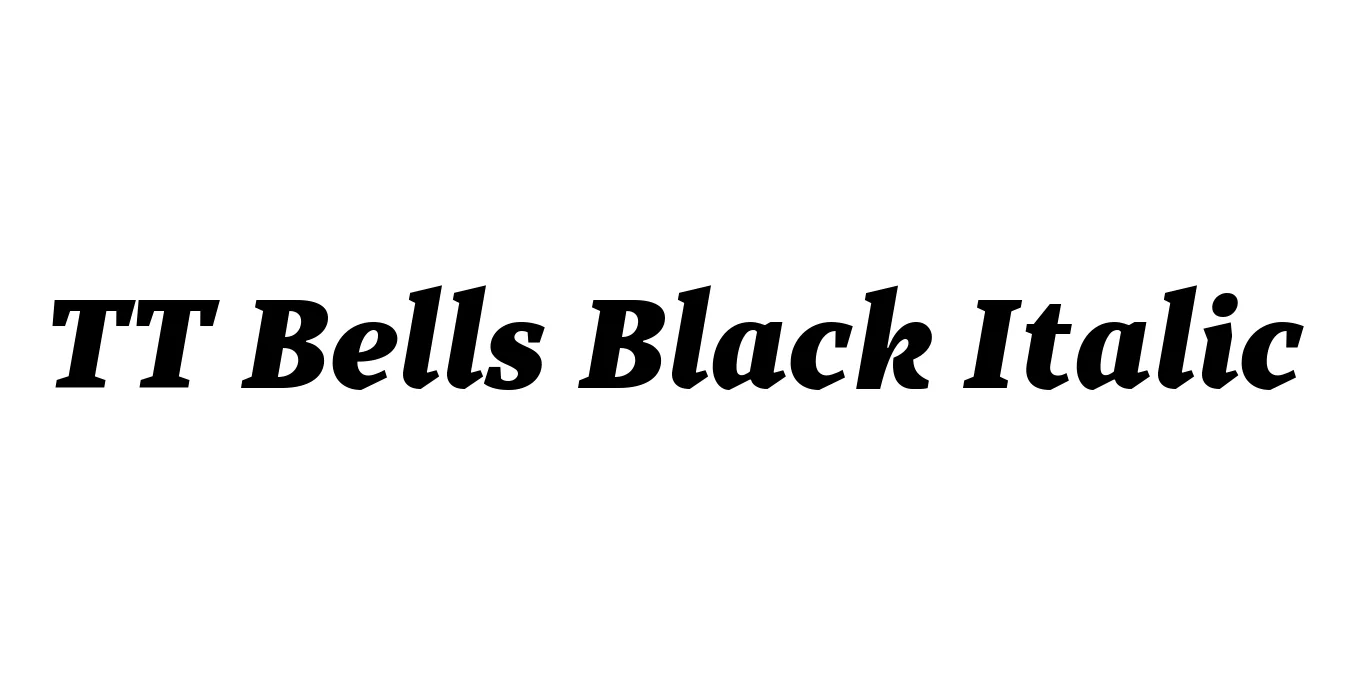
TT Bells Black Italic
Designed by TypeType Team (Ivan Gladkikh, Pavel Emelyanov)
TT Bells Black Italic is a sophisticated serif typeface that draws inspiration from the classical fonts of the late 18th century. It successfully bridges the gap between traditional English Caslon and refined French Garamond, offering a contemporary take on historical elegance. The Black Italic weight is particularly striking, characterized by its extreme weight, sharp serifs, and dynamic slant that adds a sense of urgency and prestige to any layout.
Developed by the TypeType foundry, this font is part of a larger family designed for maximum versatility across digital and print media. Its high-contrast strokes and meticulous spacing make it an ideal choice for high-end editorial design, luxury branding, and sophisticated advertising campaigns where a blend of tradition and modernity is required.
TT Bells Black Italic Best Uses
Excellent for bold magazine headlines and sophisticated pull quotes.
Perfect for high-end fashion logos and premium identity systems.
Highly effective for prestige marketing materials requiring a strong visual presence.